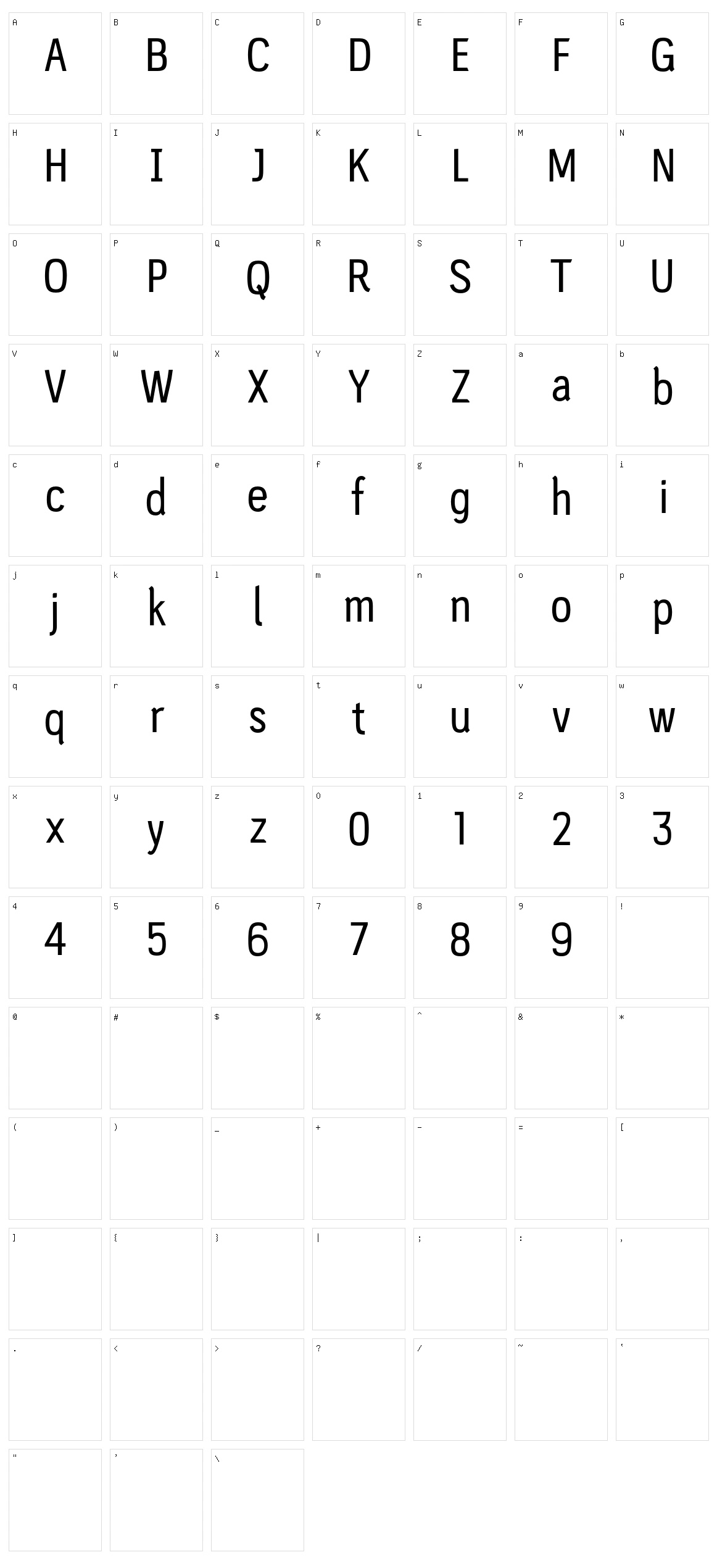
The free font PC Navita is carefully designed by Parker Creative, showcasing a thoughtful balance of creativity and usability and falls under the Sans serif font style. When you download the ZIP file, it contains only 8.91 KB of font files, making it lightweight and quick to download. Please review the license details below to understand permitted usage and distribution rights. If license information is not available, we recommend using this font for personal projects only or contacting the author directly for commercial usage permissions.